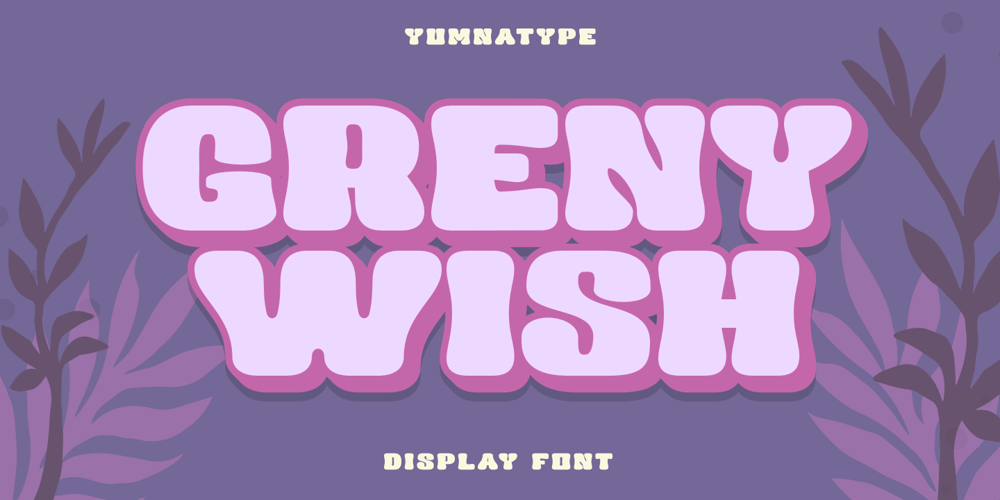
Greny Wish Font Family was designed by Donis Miftahudin and published by Yumna Type. Greny Wish contains 1 styles and family package options. Greny Wish is an all-caps display font designed to make a strong statement. With a very bold weight, this font commands attention and delivers a powerful presence in any design. The low contrast ensures a cohesive and solid appearance, while the rounded shapes add a friendly touch. Its striking design makes it an excellent choice for creating memorable and eye-catching visuals. In addition, enjoy the features here.Features: Ligatures Multilingual Supports PUA Encoded Numerals and Punctuations Greny Wish fits in headlines, logos, posters, flyers, branding materials, print media, editorial layouts, and many more designs. Find out more ways to use this font by taking a look at the font preview.Thanks for purchasing our fonts. Hopefully, you have a great time using our font. Feel free to contact us anytime for further information or when you have trouble with the font. Thanks a lot and happy designing.